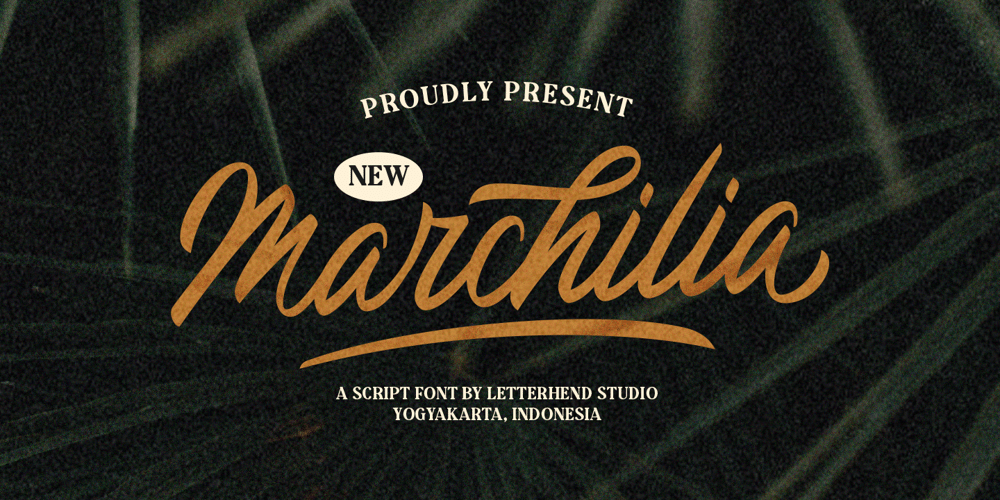
The Marchilia Font Family was designed by Hendry Juanda and published by Letterhend. The Marchilia contains 1 styles and family package options. The Marchilia is a brush script with casual looks. You can playaround with alternate characters. This font perfectly made to be applied especially in logo, and the other various formal forms such as invitations, labels, logos, magazines, books, greeting / wedding cards, packaging, fashion, make up, stationery, novels, labels or any type of advertising purpose.Features : Uppercase & lowercase Numbers and punctuation Alternates & Ligatures Multilingual PUA encoded